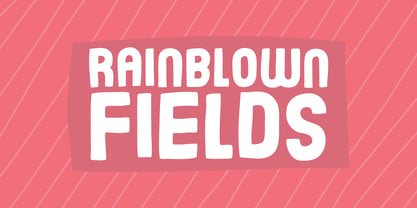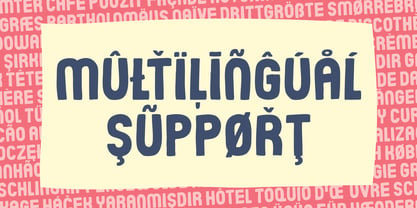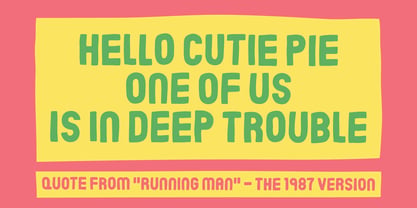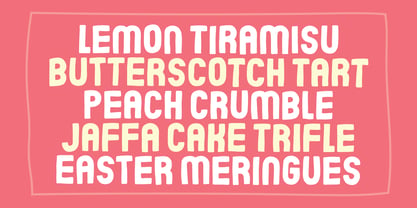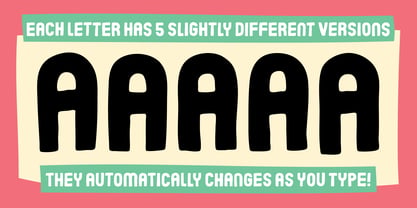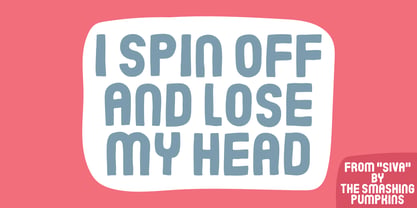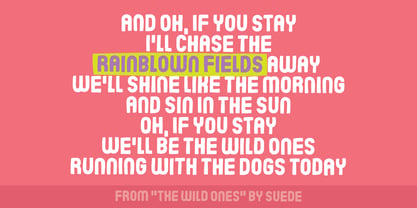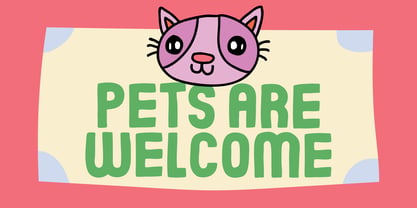
Rainblown Fields
by Bogstav
The Rainblown Fields Font Family was designed by Jakob Fischer and published by Bogstav. Rainblown Fields contains 2 styles and family package options. More about this family
The name "Rainblown Fields" is taken from a Suede song called "The wild ones" I've always fancied this song, and since I completed the font on a day with rainy weather and strong winds, I decided to dedicate this font to the song. The letters of "Rainblown Fields" is built, using a grid - that's why most letters seems cast from the same form. But I have added 5 slightly different versions of each letter - they do look the same, but there are small differences between them! Nevertheless, the different versions give a lively and organic look to your text! Also - the letter shapes are inspired by grafitti and comics! :)
Designers: Jakob Fischer
Current Foundry: Bogstav